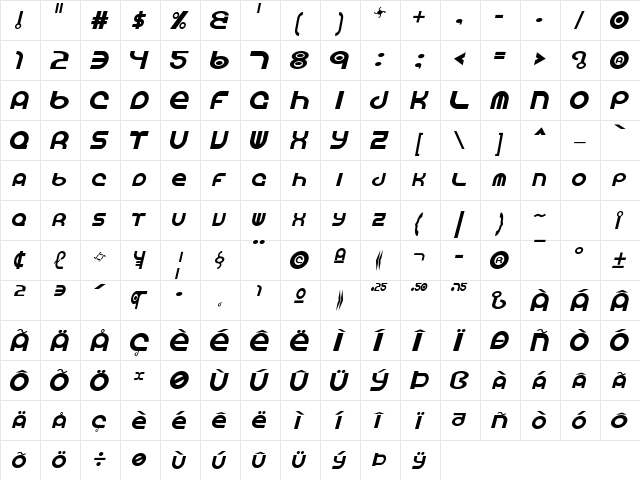
Vocaloid Italic Font Preview
Vocaloid Italic
Vocaloid Italic Font Details
| Foundry | Megami Studios |
| Designer | Rob Barba |
Design Context for Vocaloid Typeface
Vocaloid is a composed and adaptable typeface that performs quietly and consistently across a wide range of design contexts. Its italic angle brings a sense of urgency and motion to the letterforms.